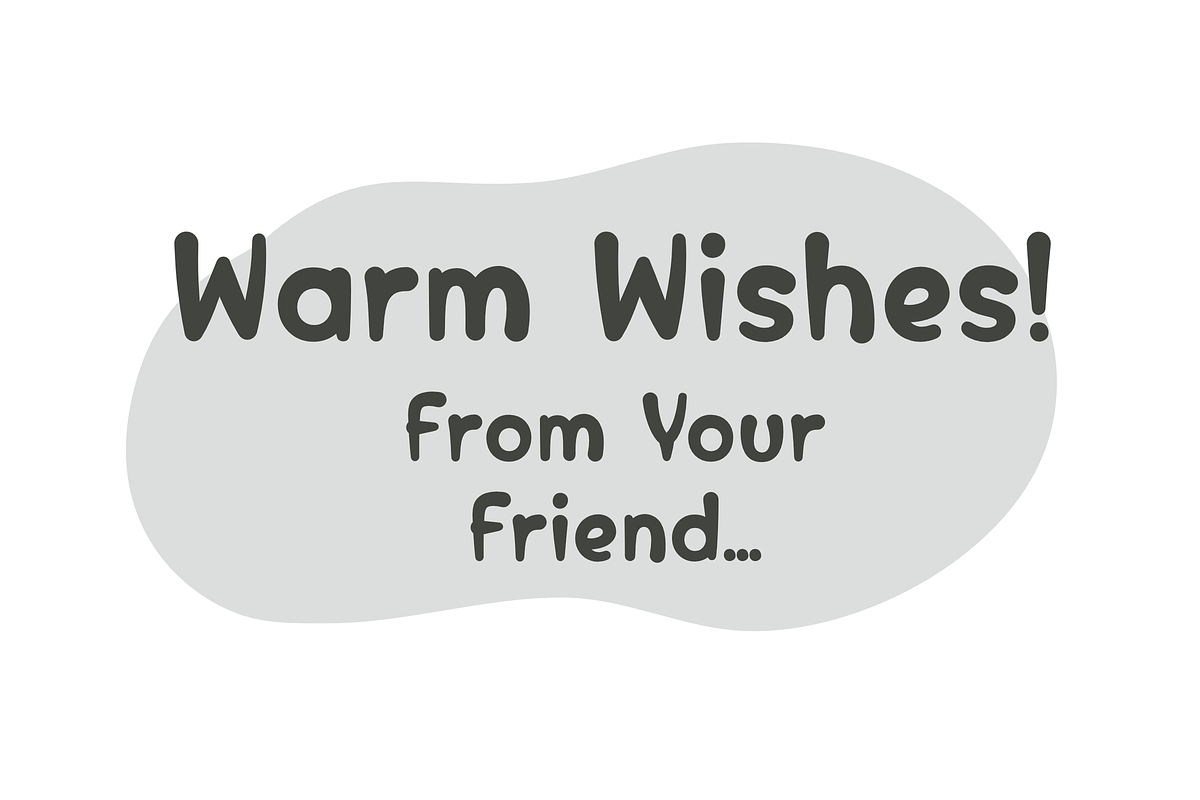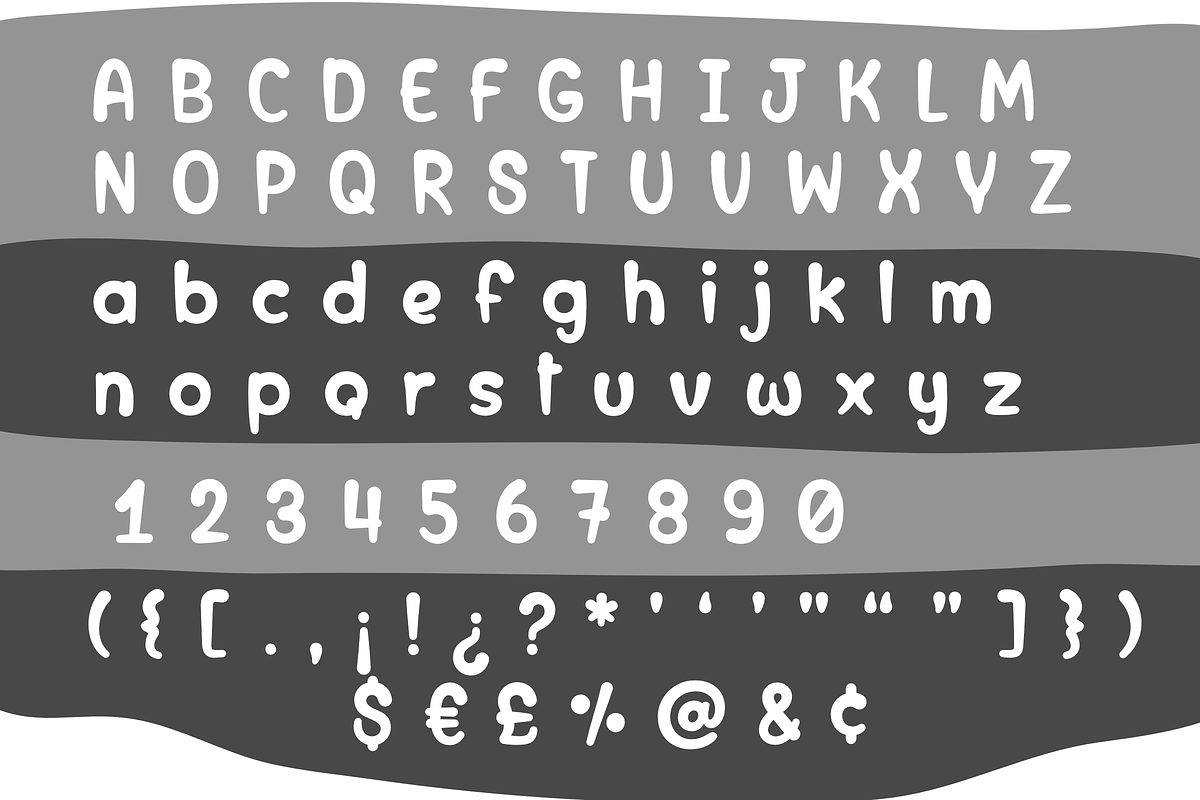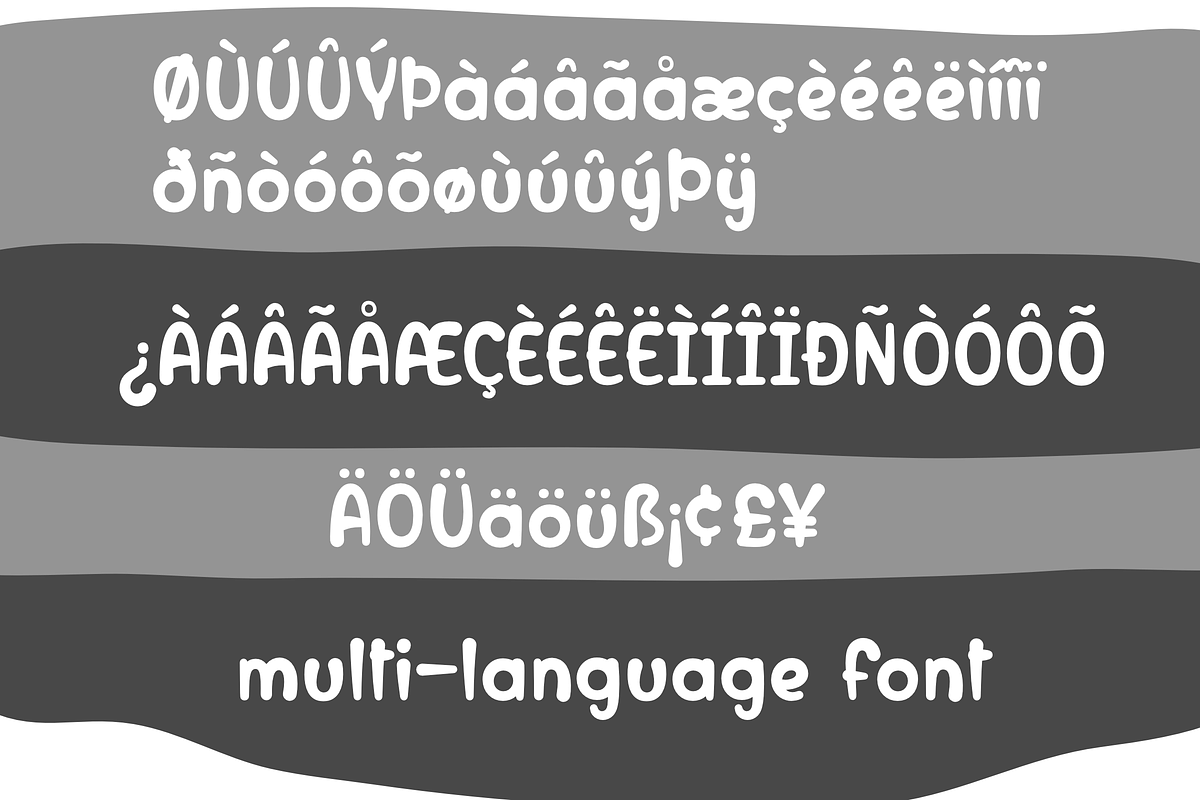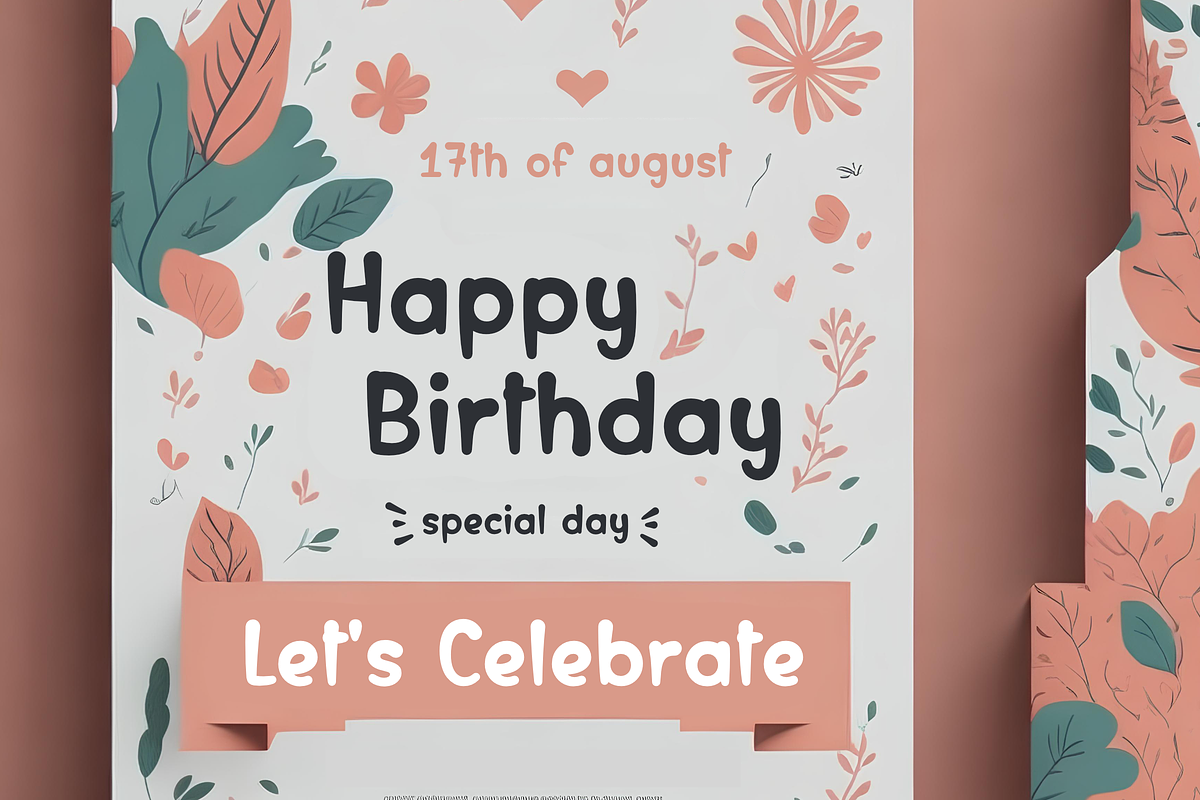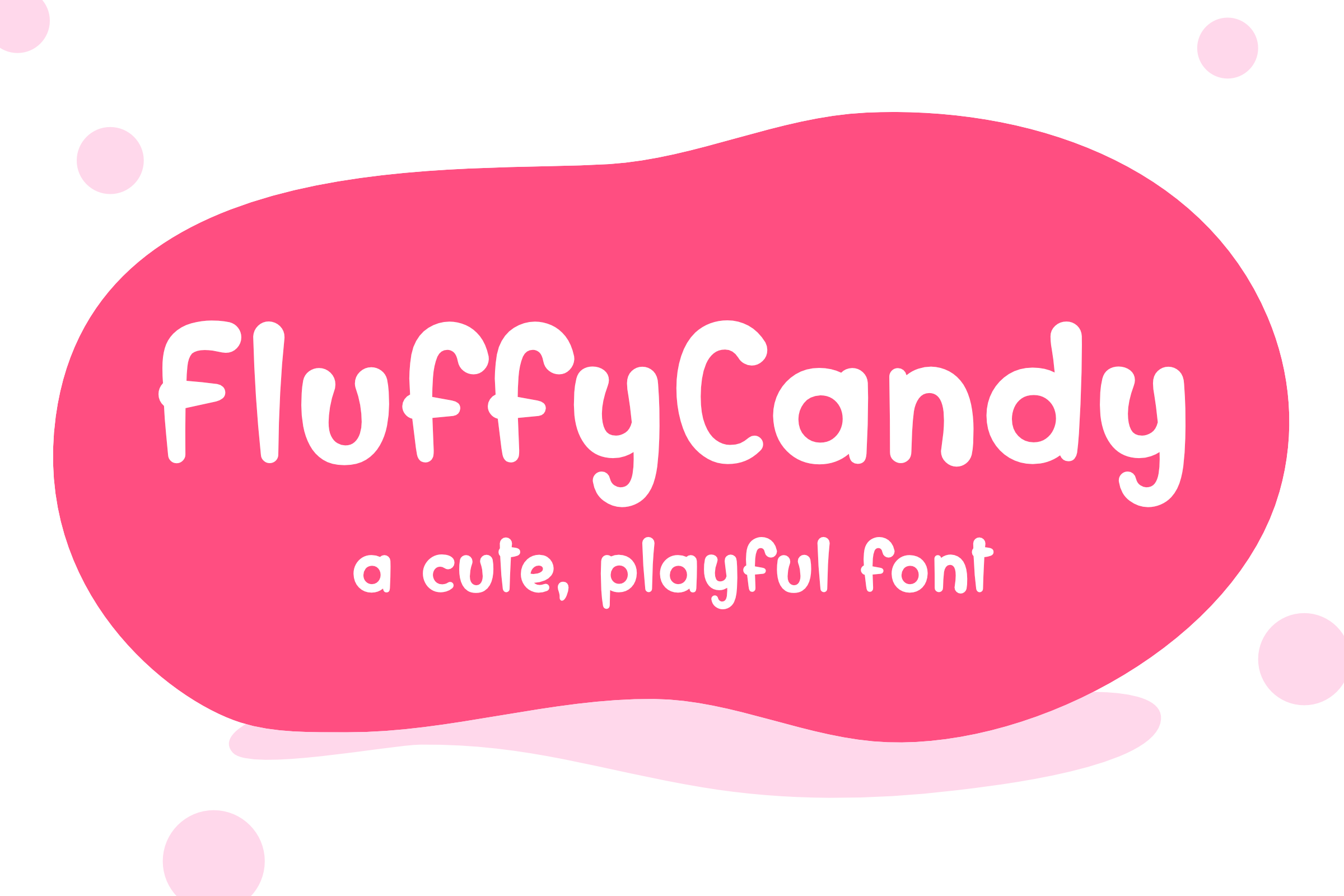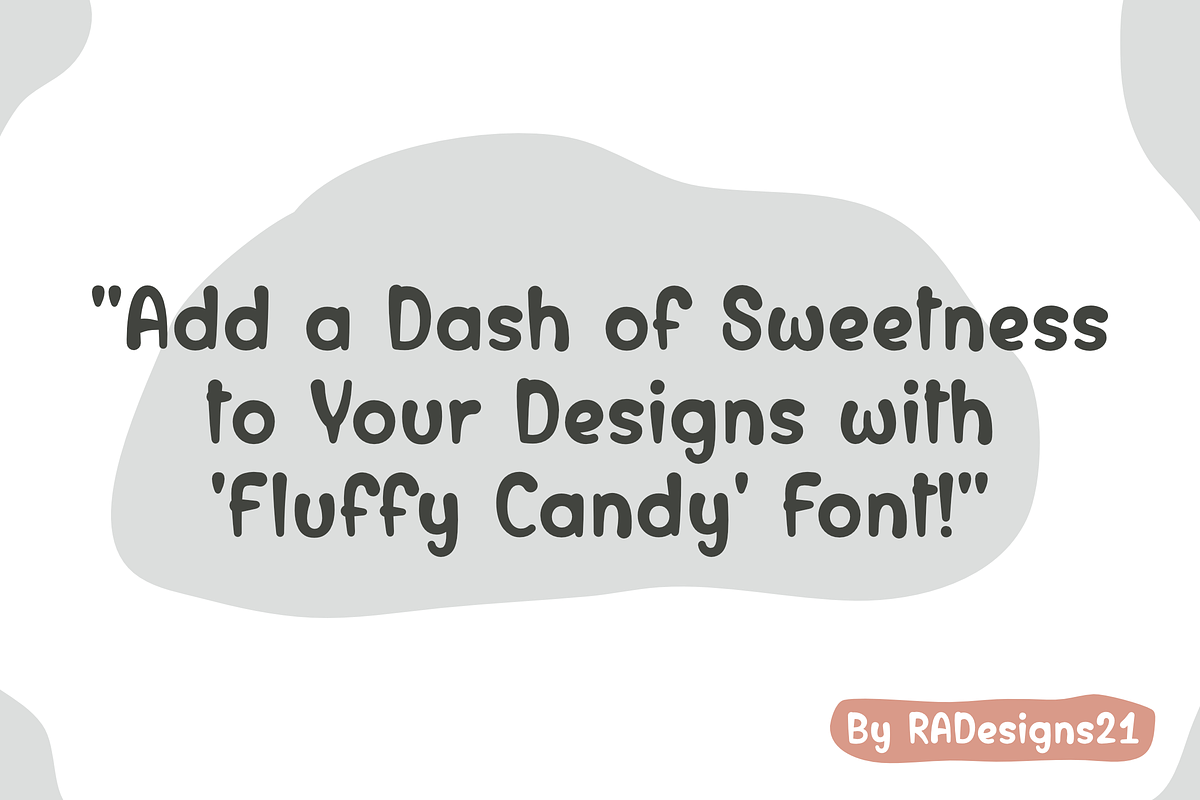
FluffyCandy Font
Fluffy Candy is a whimsical and charming typeface that brings a touch of sweetness to your designs. With soft, rounded edges and an inviting playfulness, this font is perfect for adding a delightful twist to your projects.